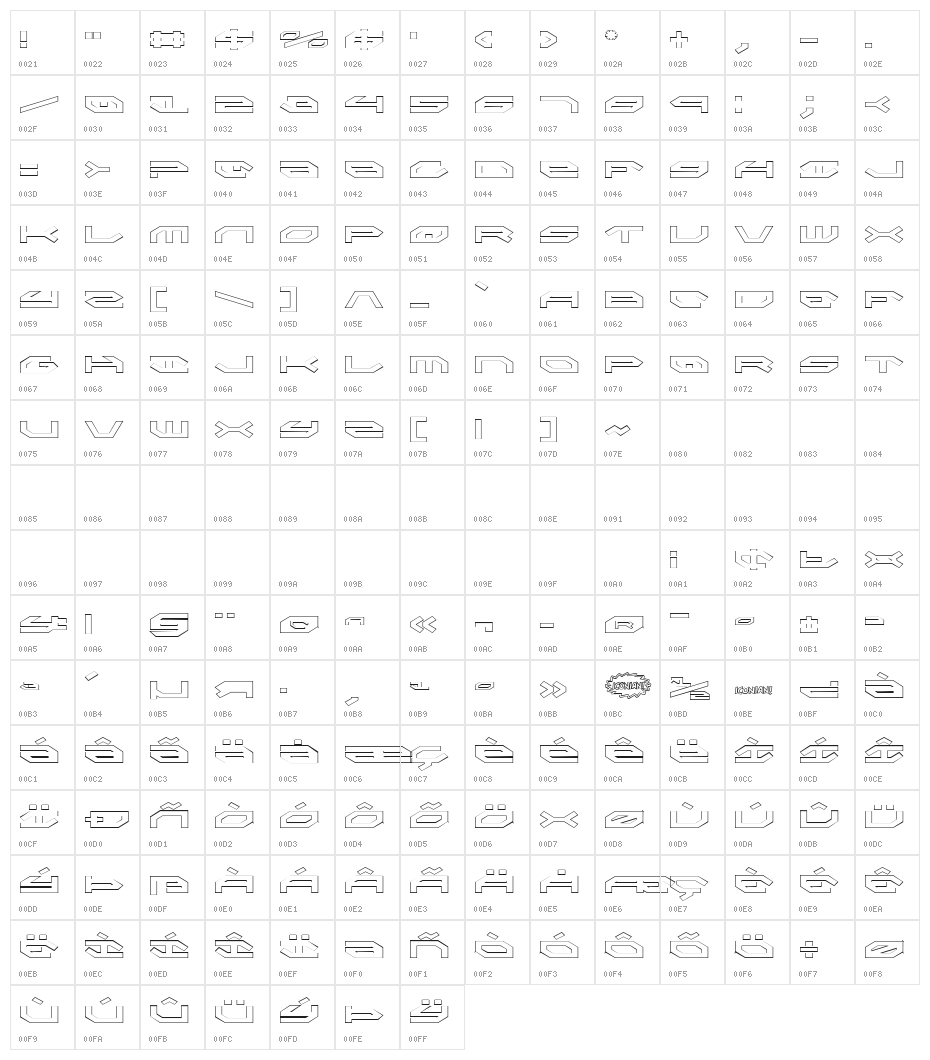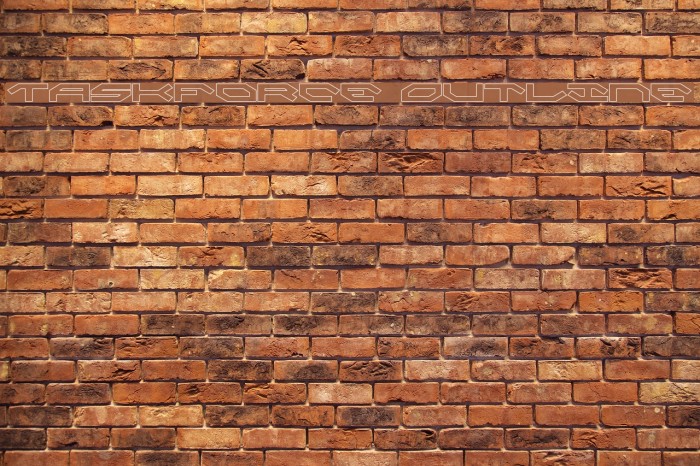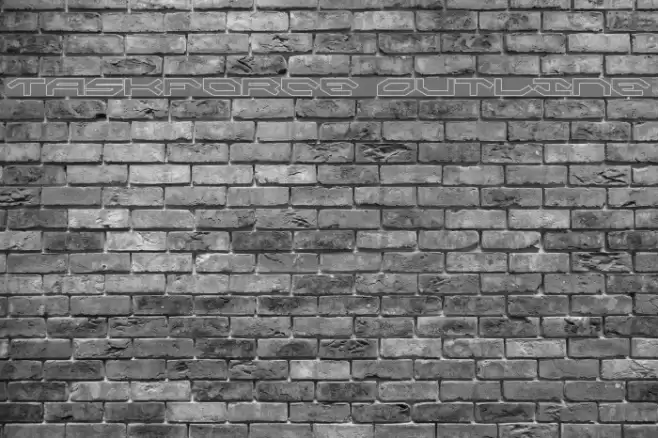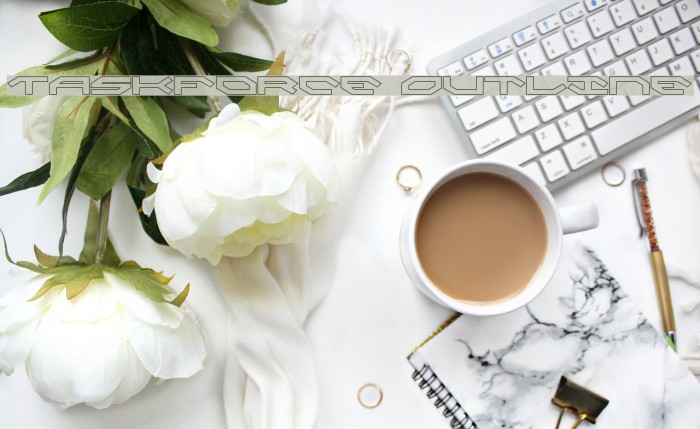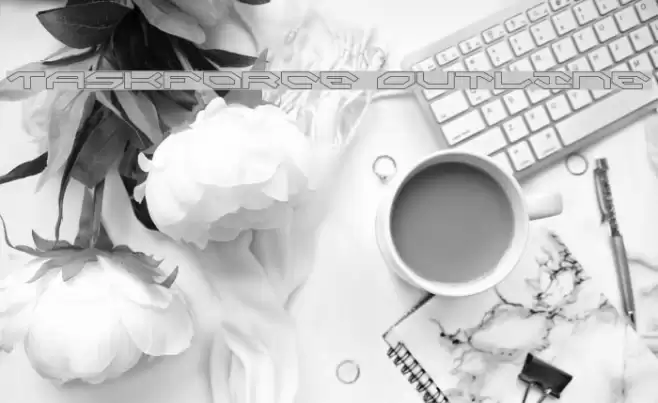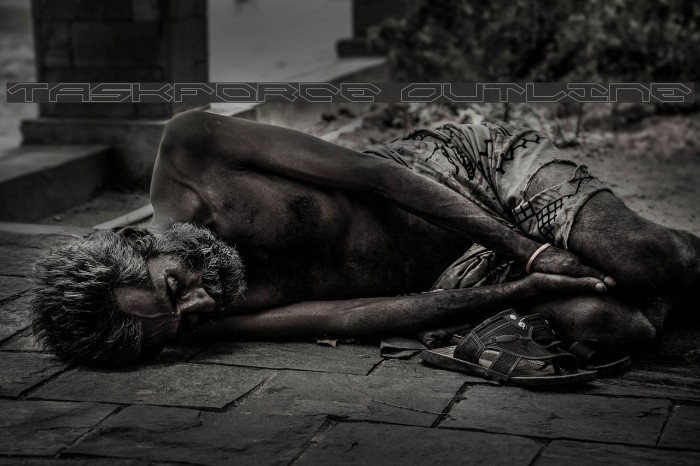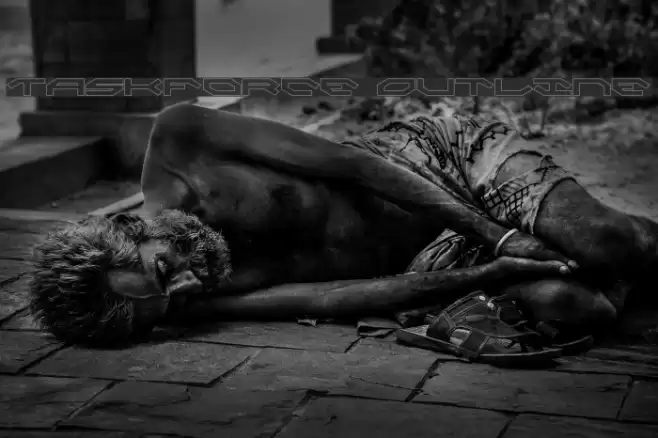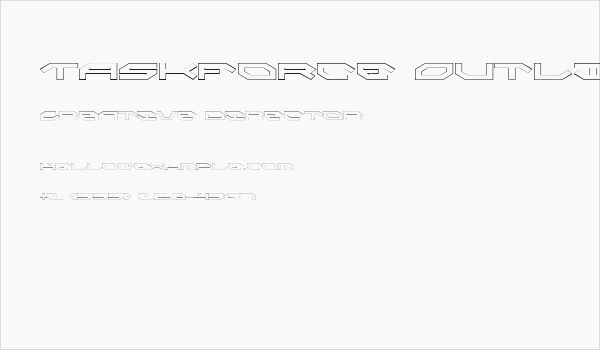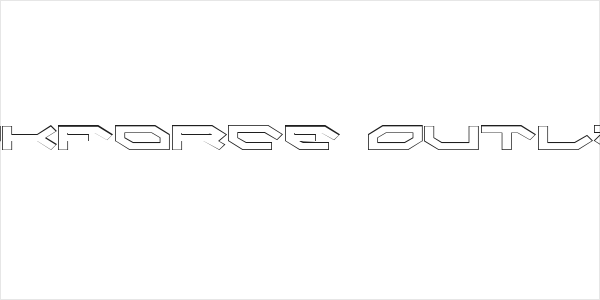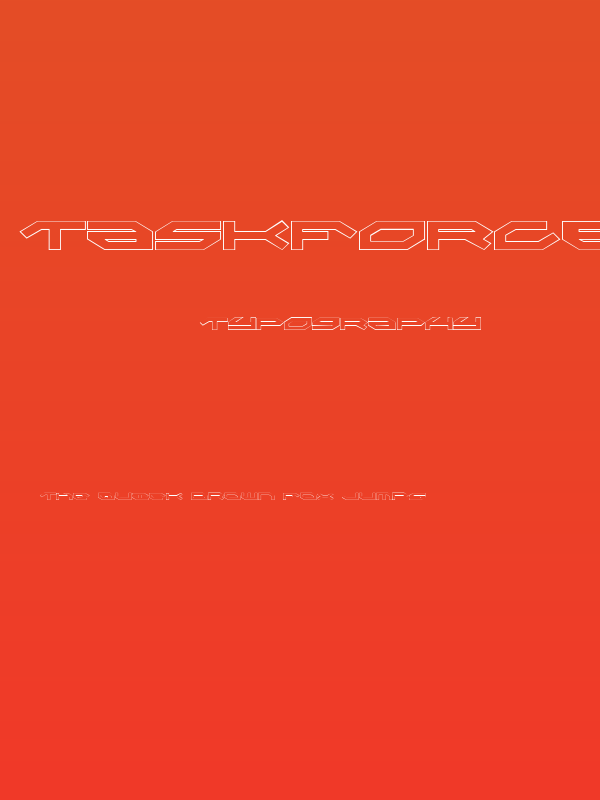
Taskforce Outline Font
Taskforce Outline Description
This font features a futuristic and geometric design, characterized by its outlined, angular letterforms. The uppercase and lowercase letters maintain a consistent style, with sharp edges and a distinct, technical appearance. The numerals and special characters follow the same design principles, ensuring uniformity across all glyphs. The font's structure is reminiscent of digital or sci-fi themes, making it suitable for projects that require a modern and edgy look. Its outlined nature gives it a unique, airy feel, while still maintaining readability.
| Proposed Projects | Ideal for sci-fi themed designs, tech branding, video game titles, and futuristic posters. |